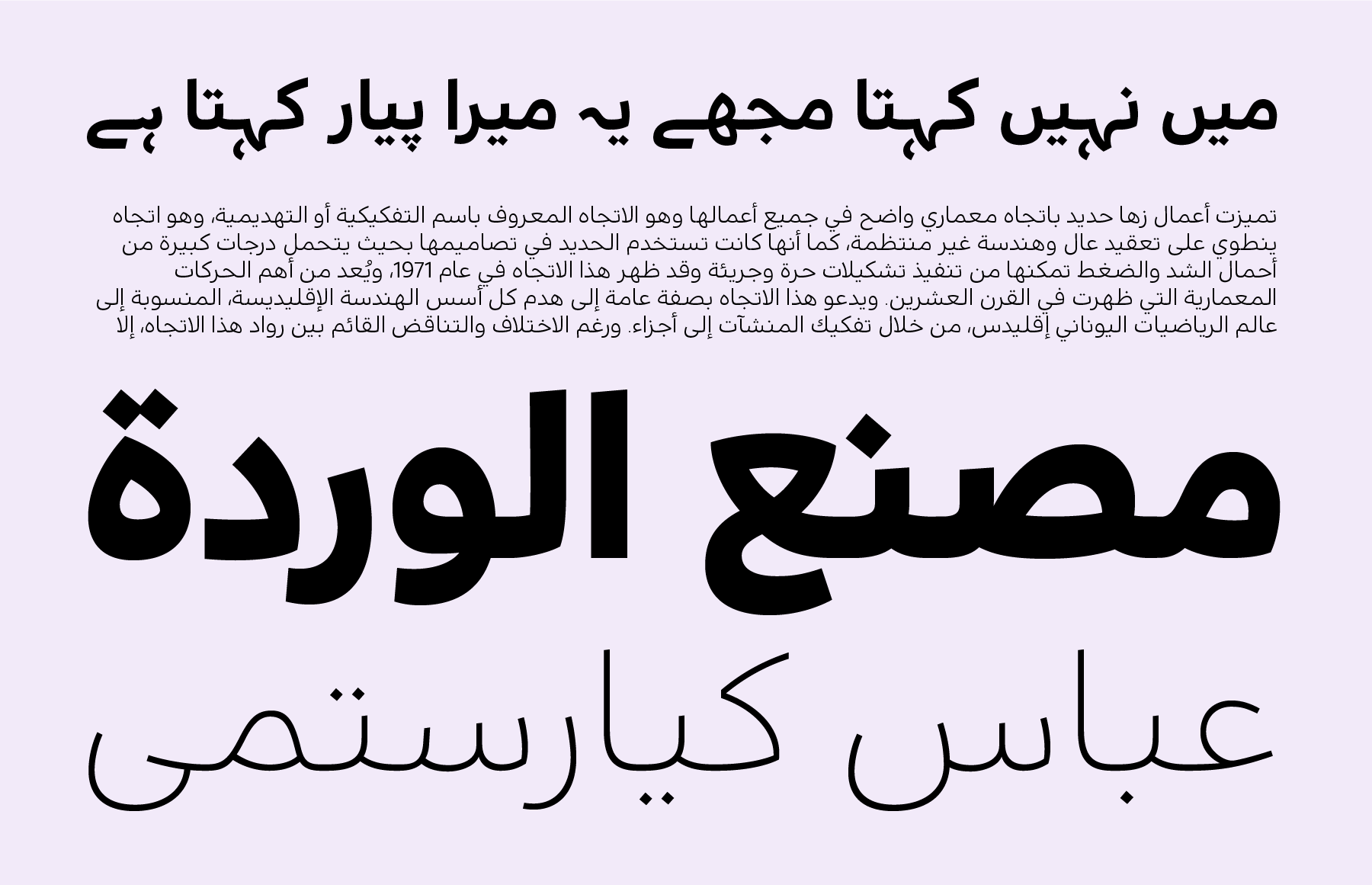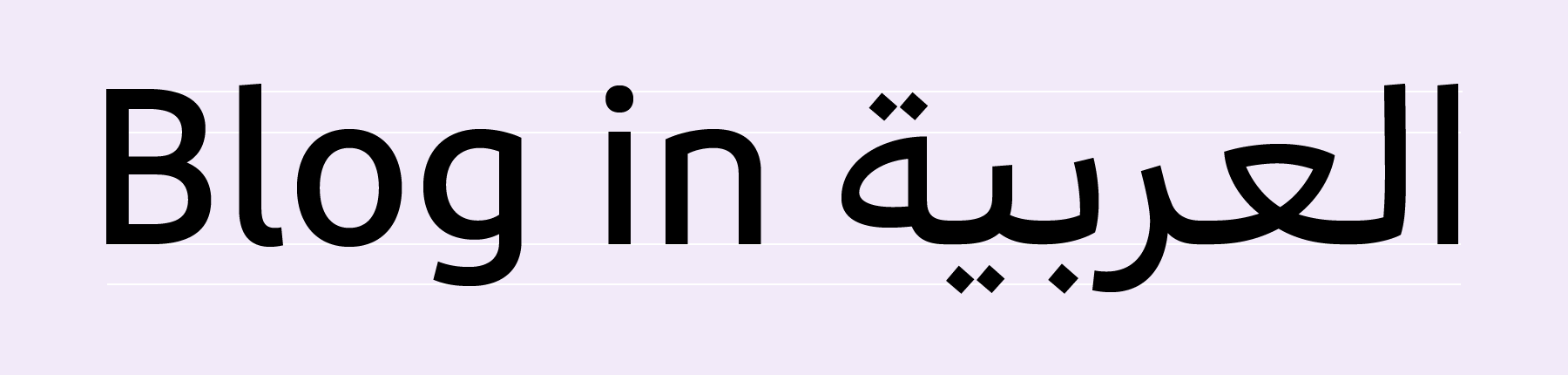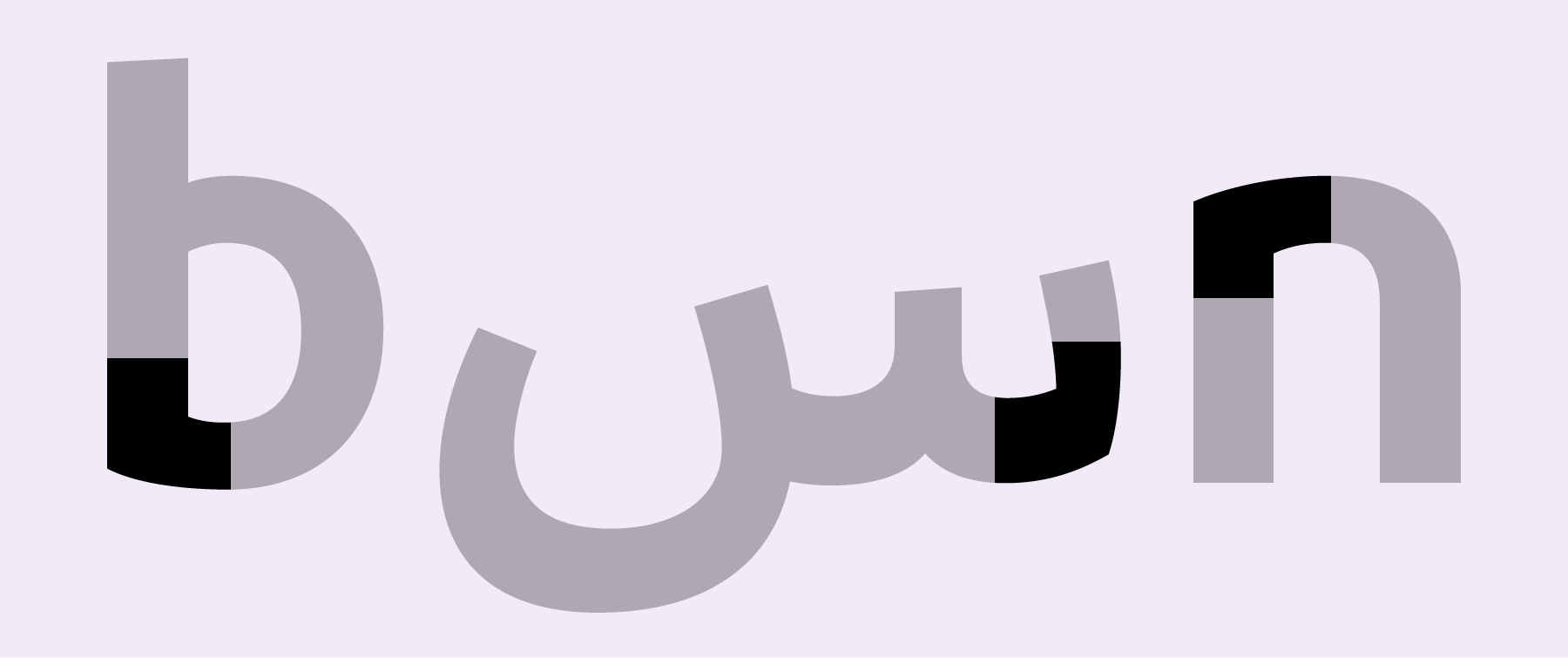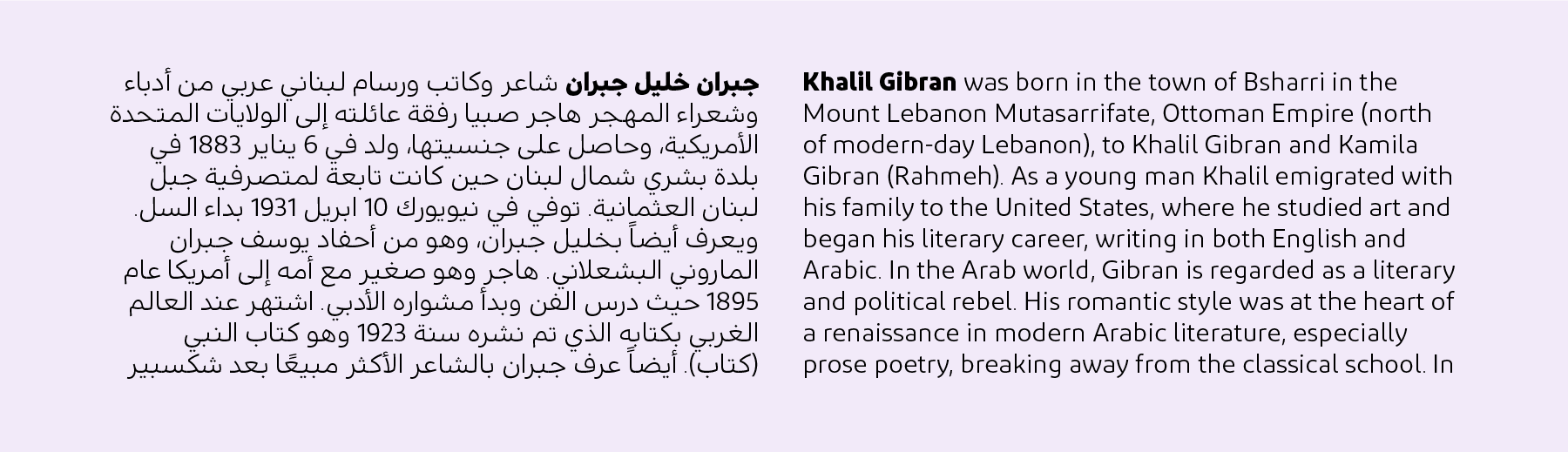
Over the past seven years, we’ve published typefaces for eight scripts: Bengali, Devanagari, Gujarati, Gurmukhi, Latin, Malayalam, Tamil, and Telugu. This month, we are adding a ninth script to the list; we’re proud to release of our very first typeface for the Arabic script, Diodrum Arabic.
Diodrum Arabic is a low-contrast font family with six weights; the lightest of these is ExtraLight. The letterforms of the typeface are designed in a Naskh style. Since Naskh is the variety that is used most-often today for digital Arabic-language typesetting, we’ve named this family Diodrum ‘Arabic’. Nevertheless, the font family includes all of the glyphs necessary for Persian and Urdu language-support – Urdu is one of India’s many official languages. We hope that Diodrum Arabic will appear to users of the Arabic script all over the world, no matter what language they speak.
As a script, Arabic typically places a stronger emphasis on the horizontal than the Latin script does. Since both the Arabic and the Latin letterforms in Diodrum are monolinear – neither their horizontal nor their vertical strokes exhibit much contrast with one another – Diodrum Arabic employs another method of increasing the prominence of horizontality: the letters’ counterforms have been designed to be large and open. Their ‘middle sections’ are therefore quite accentuated. Another result of this, coupled with the Latin’s tall x-height, is that Diodrum appears friendly and more legible, too.
The Diodrum typeface is optimized for corporate identity work, editorial design, and UI/UX projects. Even if there is no serif in Arabic script, letterforms of Diodrum Arabic are designed to carry the same impression as its sans serif counterpart. Some of the ‘spurless’ nature behind Diodrum Latin has been carried over to Diodrum Arabic. Spurless typefaces feature smooth transitions from letters’ stems into their curved strokes – just look at Diodrum’s lowercase ‘n’. Finally, many of Diodrum’s strokes begin or end with lightly-sheared lines. These subtle angles add a trace of the calligrapher’s hand back into the generally-static language of sans serif types. The same may be said for the typeface’s Arabic-script dots, and other marks.
Like so many of the Indian Type Foundry’s typefaces, Diodrum Arabic’s design was something of a group effort. The Arabic-script portion of each font’s character set was created by Bahman Eslami, an Iranian designer living in the Netherlands. The Latin-script glyphs were released as a stand-alone family last year, developed by three designers based in Paris: Jérémie Hornus, Clara Jullien, and Alisa Nowak. Eslami previously designed the award-winning Harir typeface for Typotheque; he graduated from the Royal Academy of Art (KABK) in The Hague, as part of the type]media class of 2014–15. Diodrum Arabic is his ITF debut.